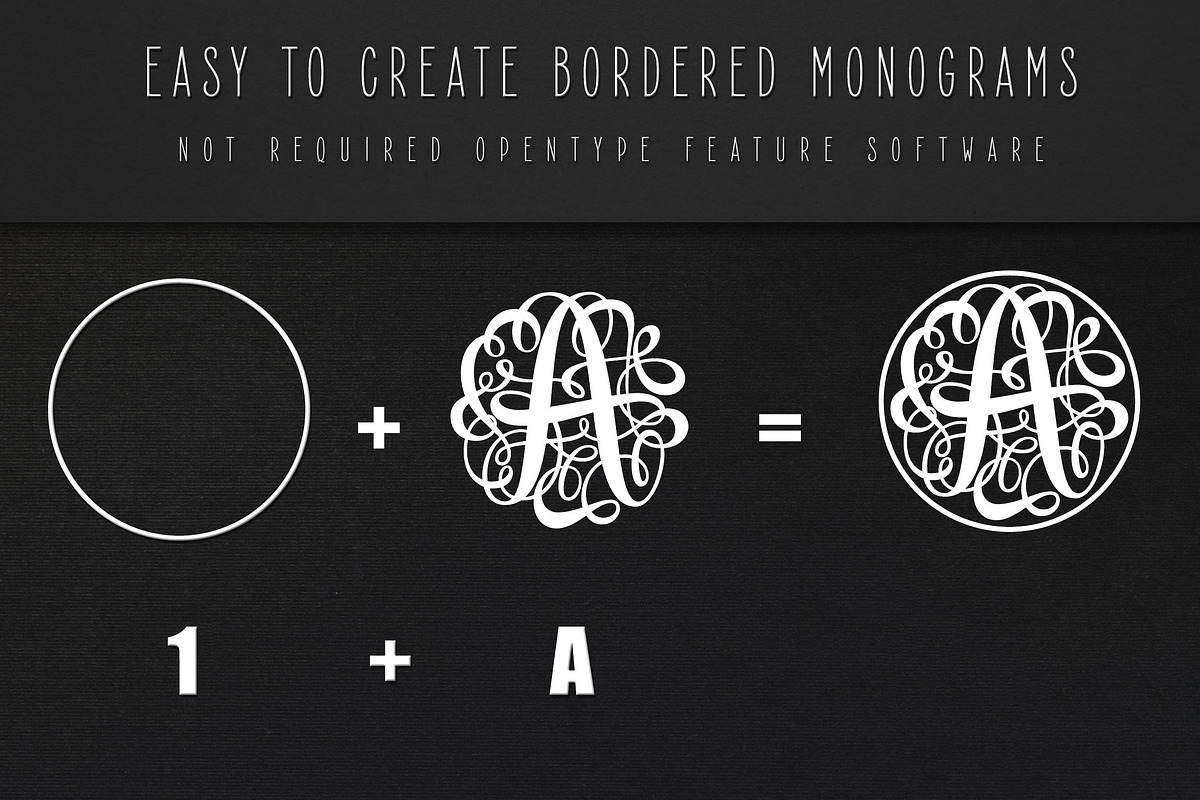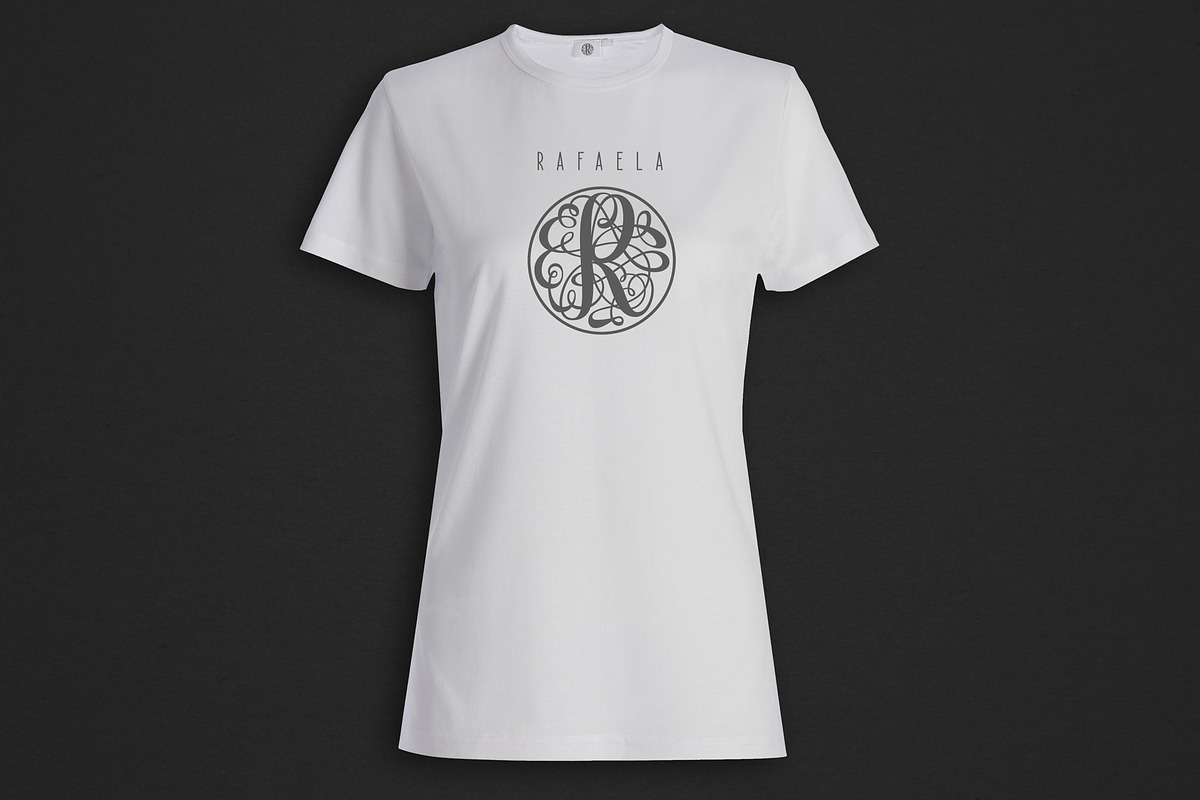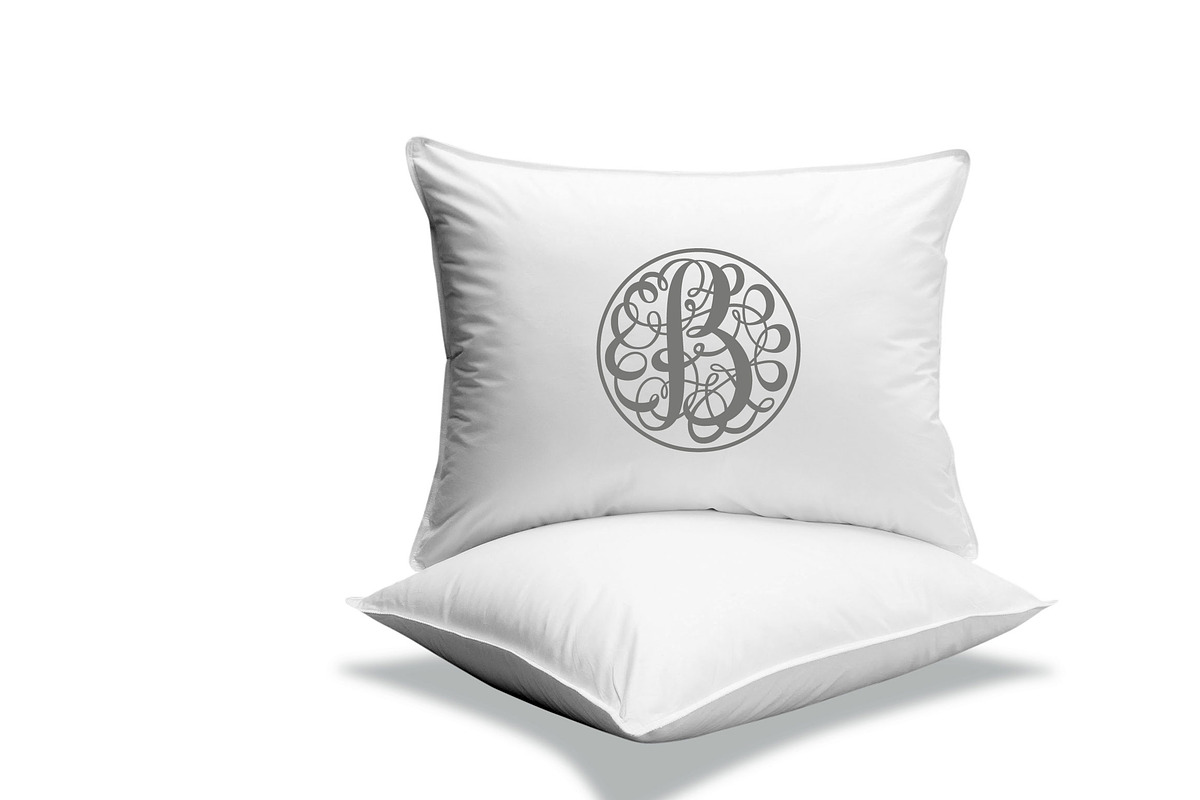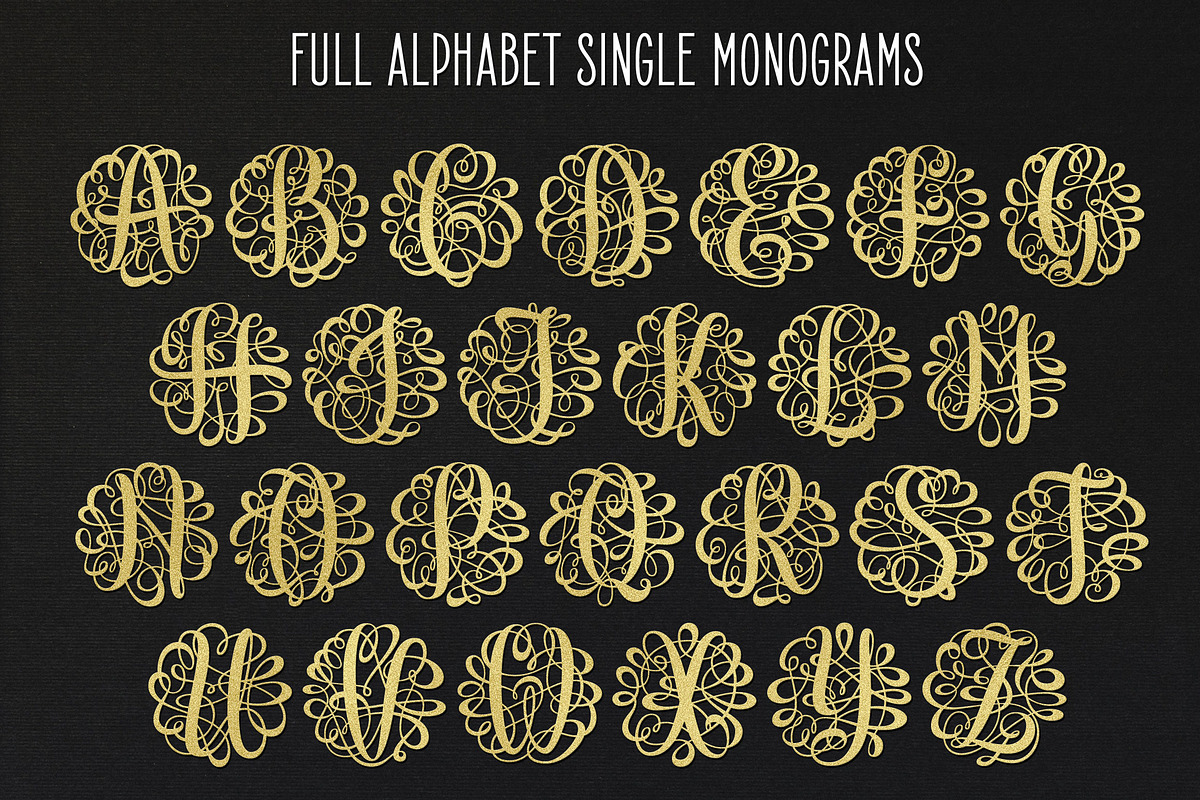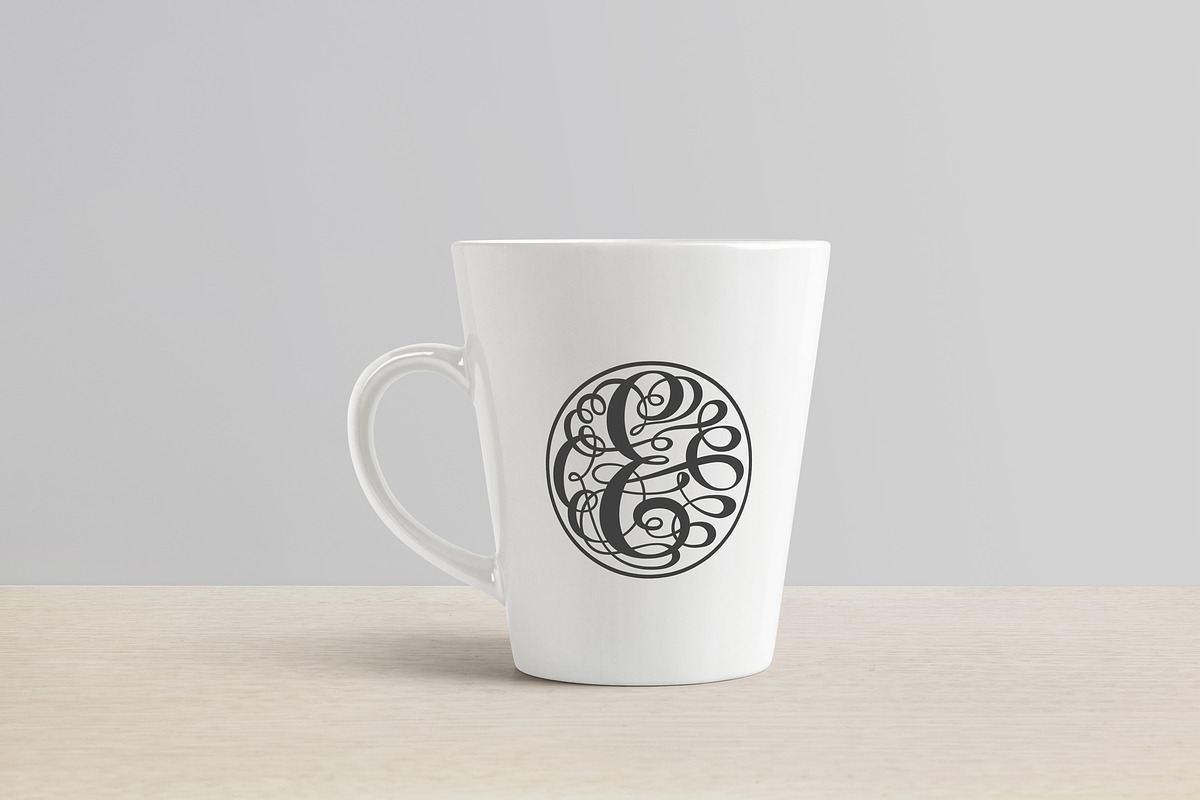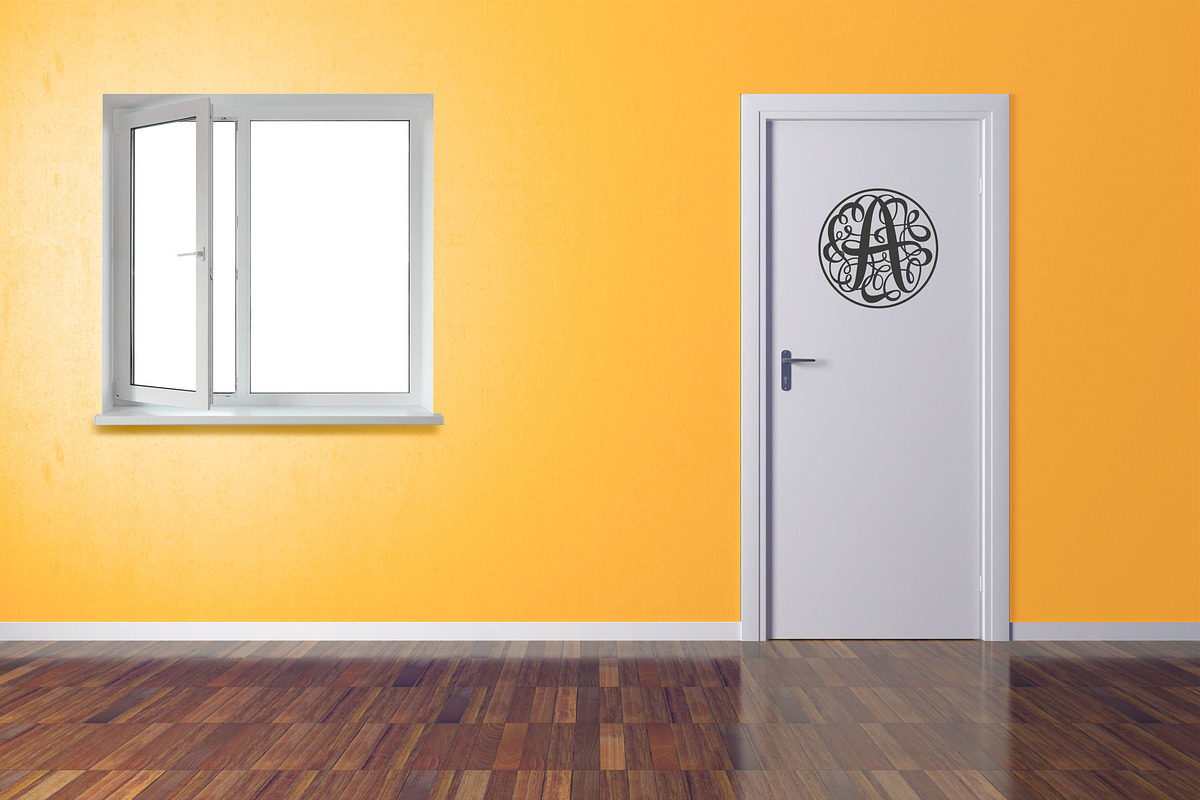
Monogram Script Single
Introducing a new lovely monogram font.
This font have flourish or botanical style, very good for romantic theme of monogram. Framed in round border, with complicated tail, but still direct to a letter. This monogram will nice applied to wedding invitation card, mug, pillow, door, box, T-shirt, etc.
Font feature:
- Complete alphabet (Type A-Z)
- Circle border (type 1 or 2)